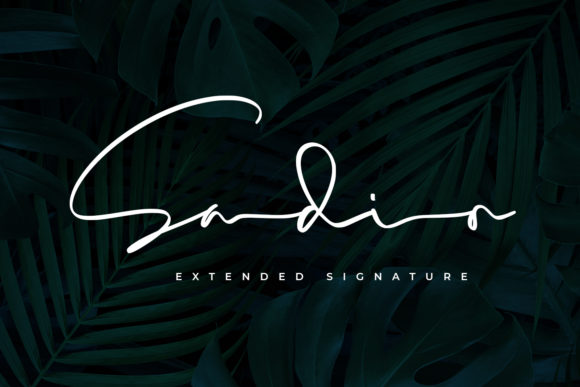
About Sadio Font
Sadio is an elegant and flowing handwritten font. Its distinct and well rounded letters make this font a masterpiece. Fall in love with its incredibly versatile style and use it to create spectacular designs! This font is PUA encoded which means you can access all of the glyphs and swashes with ease!